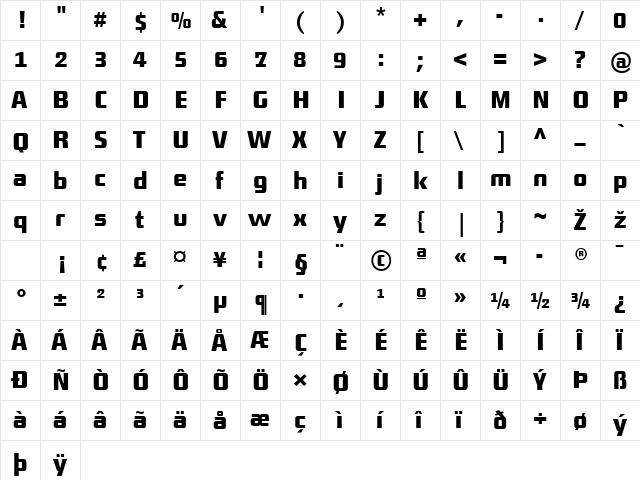
DistrictTF-Medium Regular
| Foundry | FontShop International |
| Designer | Albert Boton |
Design Context for DistrictTF-Medium Typeface
DistrictTF-Medium takes a measured approach to typography — its balanced proportions and neutral character make it a reliable workhorse for both digital and print work.